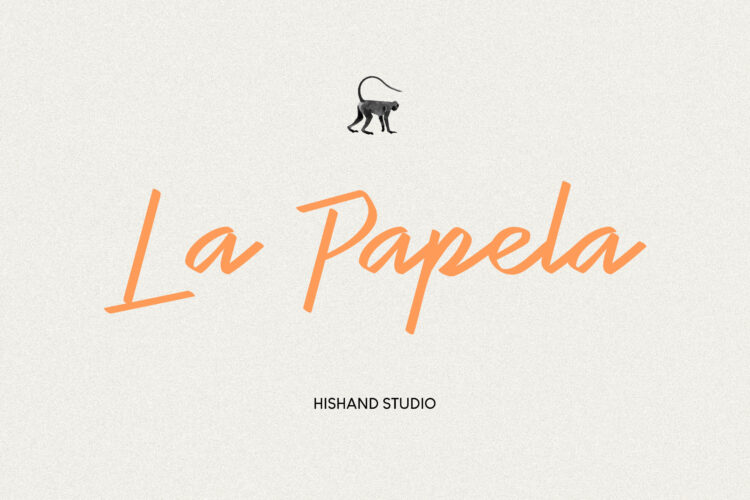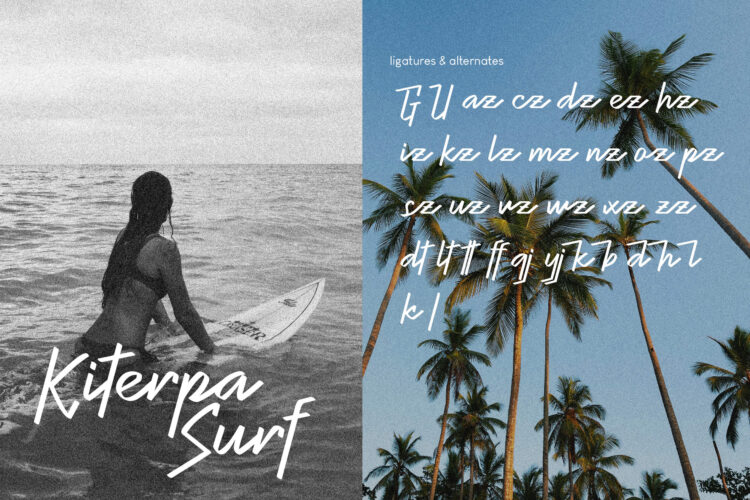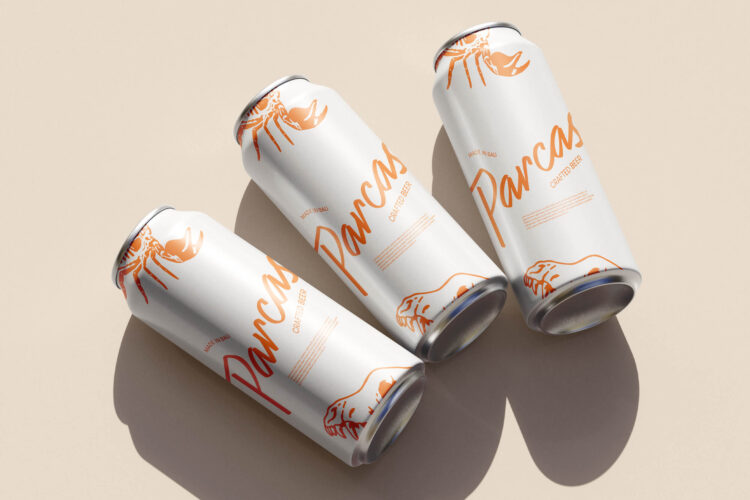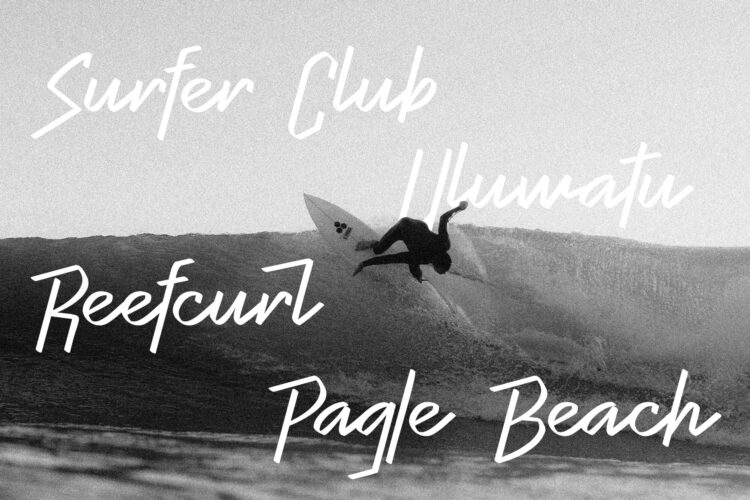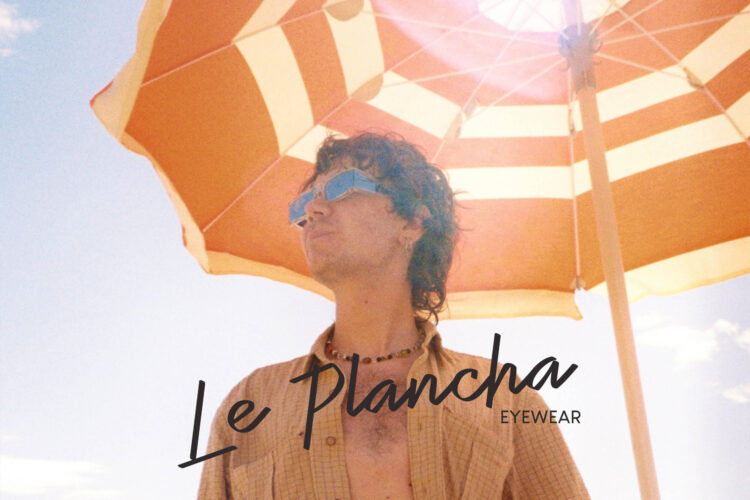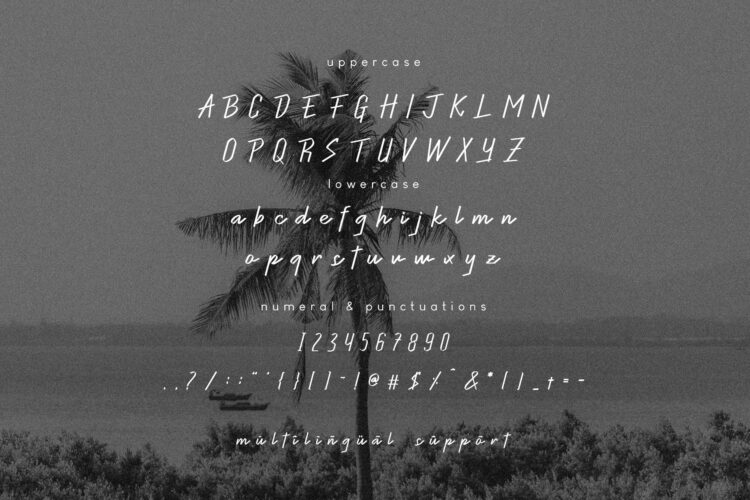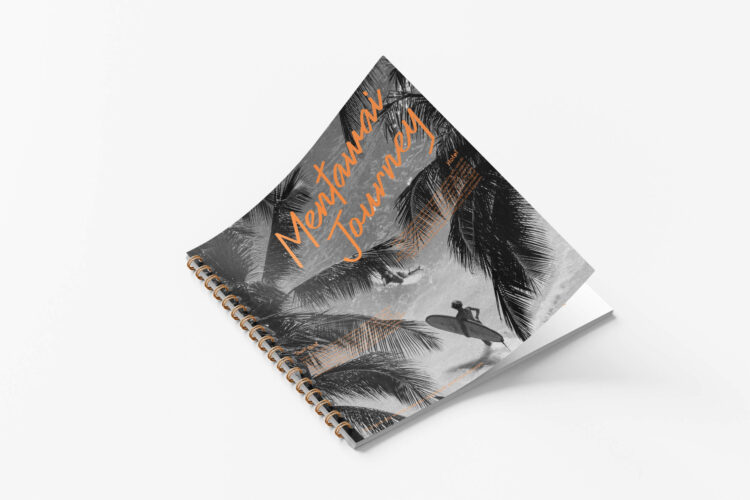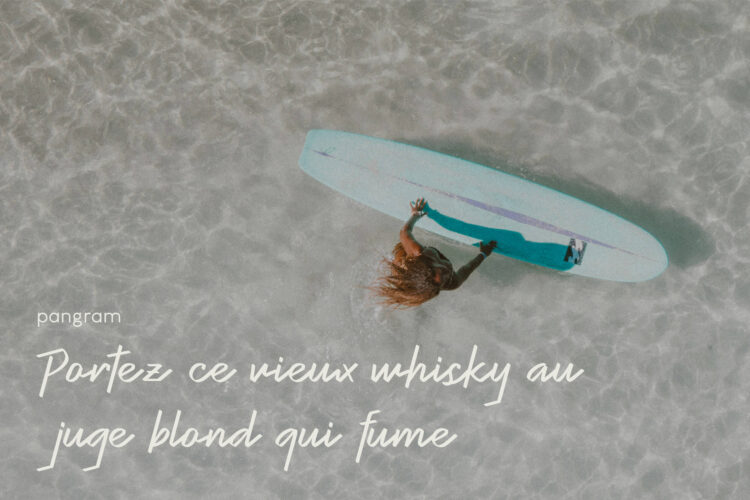
La Papela is a tropical-inspired script font created to bring a relaxed, fresh, and carefree feeling into every design. Inspired by warm weather, beachside scenery, and laid-back creative culture, La Papela Aesthetic Script Font combines natural handwritten movement with a modern and stylish appearance. Its flowing strokes, soft curves, and expressive letterforms create a smooth rhythm that feels effortless, playful, and full of personality. The font captures the atmosphere of sunny days, ocean breeze, summer adventures, and casual lifestyle aesthetics without feeling overly decorative or difficult to read.
Designed with a handcrafted touch, La Papela delivers an authentic and approachable character that works beautifully across many different creative projects. The casual handwritten flow gives every word a personal and artistic appearance while maintaining clarity and balance in both large and small text settings. This makes La Papela highly versatile for designers who want typography that feels expressive yet clean at the same time.
La Papela is perfect for branding, café menus, surf-inspired designs, travel content, social media graphics, posters, product packaging, merchandise, invitations, and lifestyle visuals that need a warm and refreshing vibe. Its relaxed personality makes it especially suitable for projects inspired by summer, nature, outdoor culture, tropical destinations, and modern casual aesthetics. The font pairs effortlessly with minimalist sans serif fonts, bold display typography, and natural color palettes, allowing it to adapt easily to different visual styles and creative directions.
The smooth connections between letters create a natural handwritten rhythm that adds movement and energy to every composition. La Papela works beautifully for bold headlines, logo designs, signature-style typography, and promotional visuals where a fun and approachable atmosphere is important. The balance between clean structure and organic flow makes it effective for both digital and print media, helping designs feel polished while still maintaining a relaxed handcrafted charm.
La Papela Aesthetic Script Font brings a fresh, relaxed, and naturally expressive feel that fits perfectly with summer-inspired designs and casual creative projects, making every layout appear more vibrant, friendly, and visually engaging.
- uppercase
- lowercase
- ligatures
- alternates